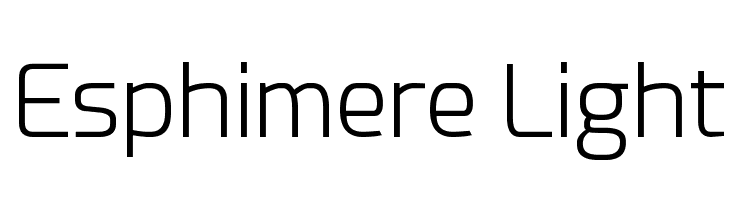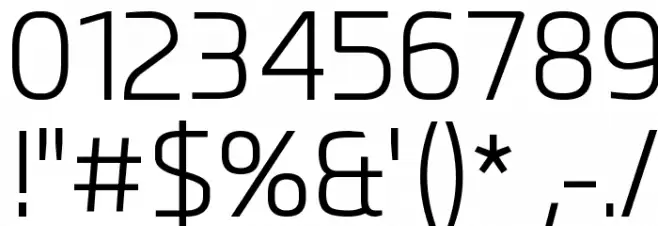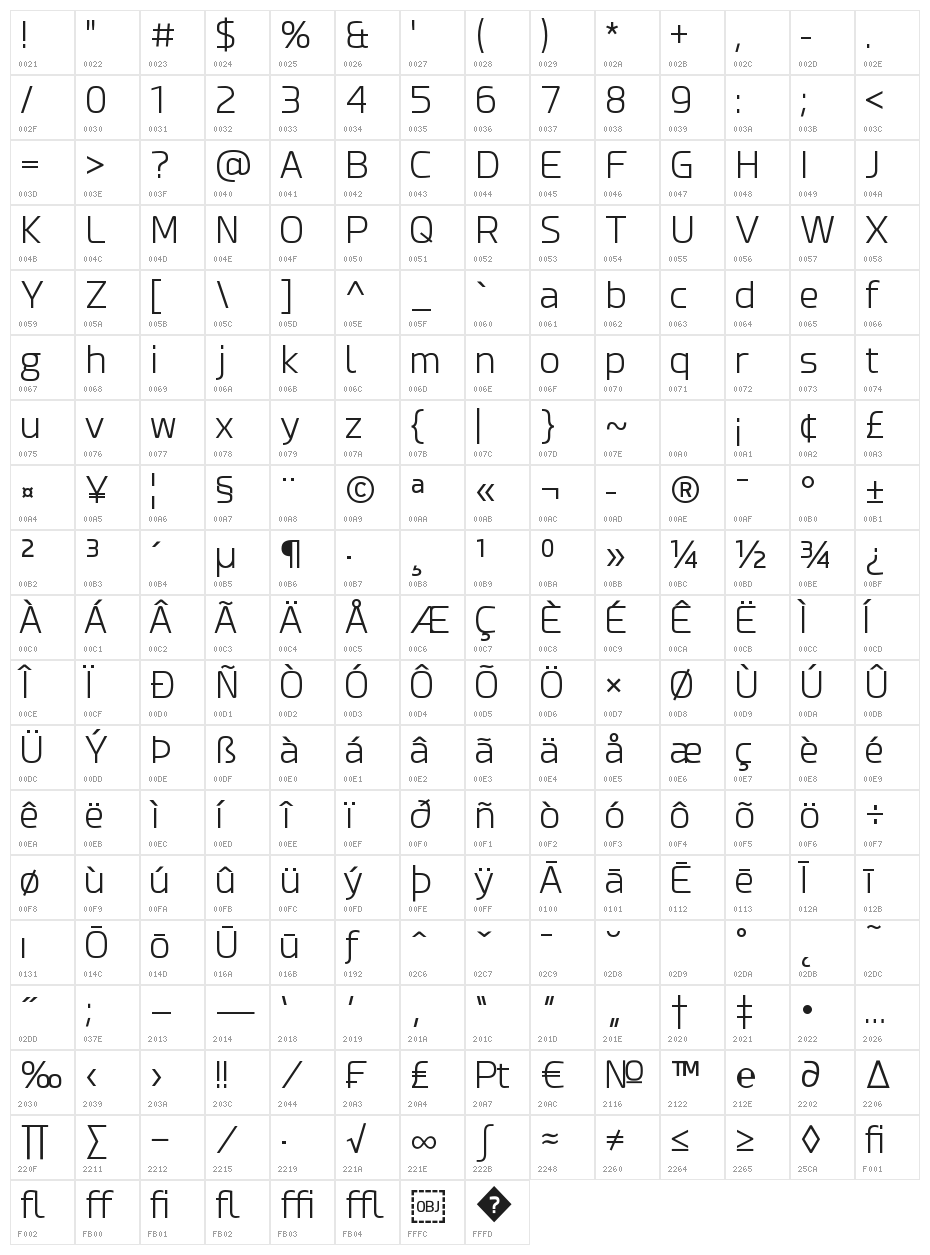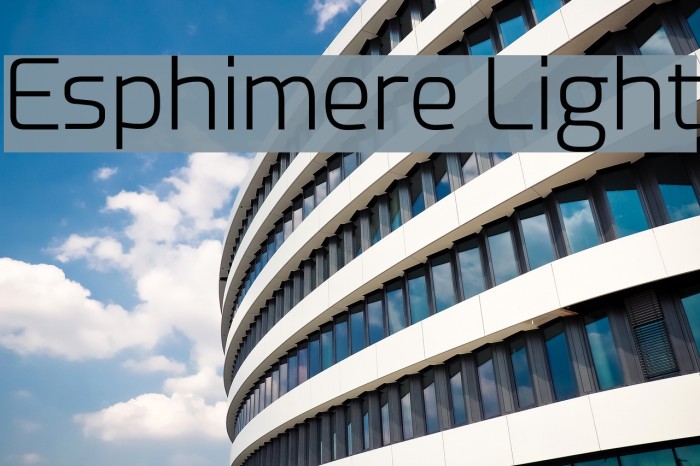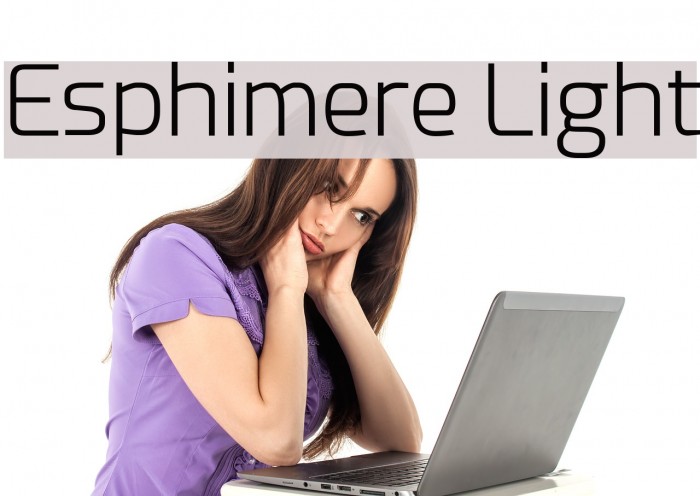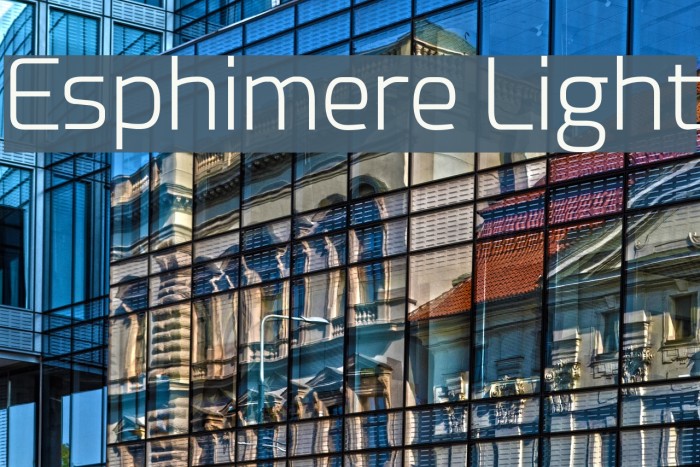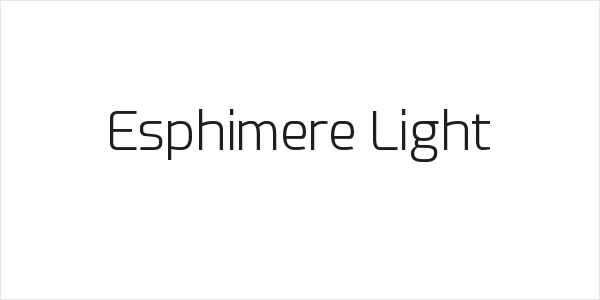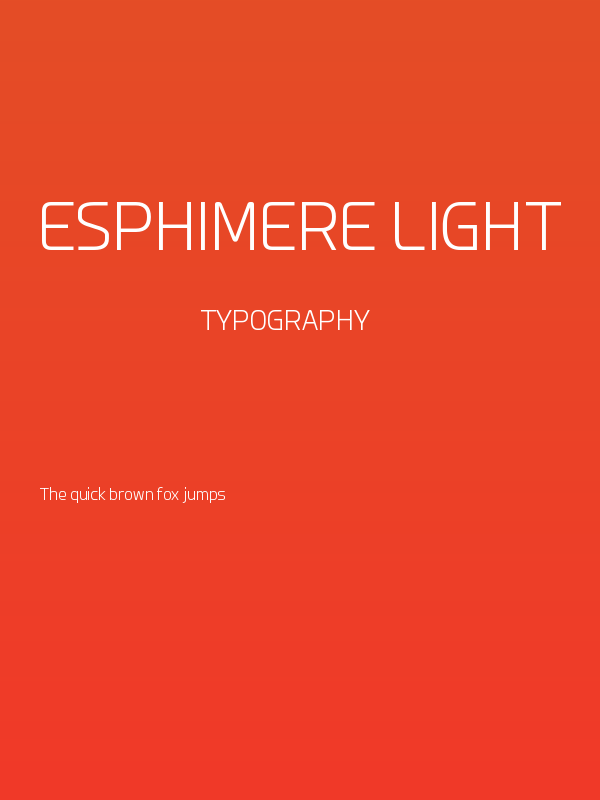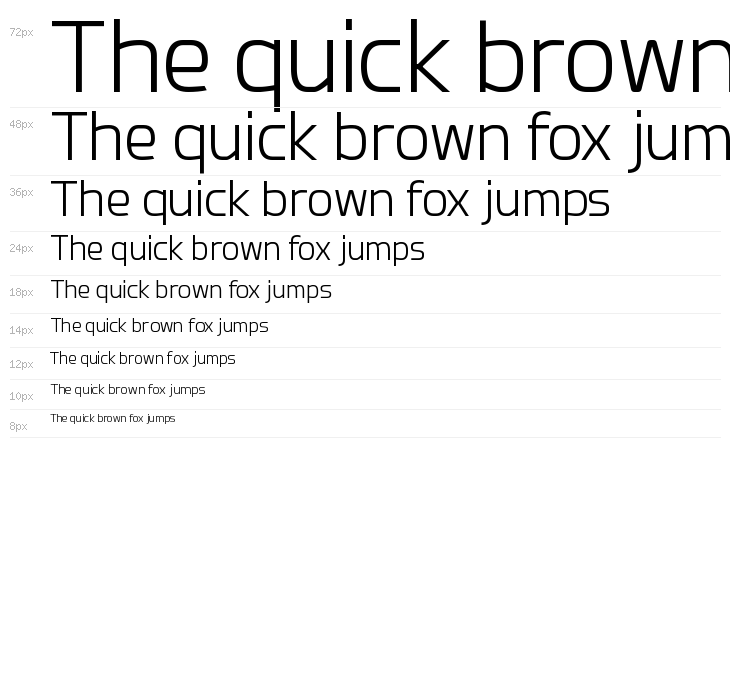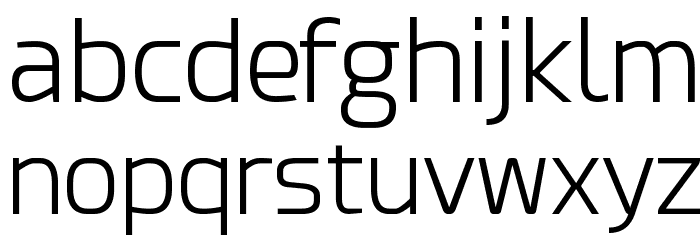
Esphimere Light Font
Esphimere Light Description
This font features a clean and modern sans-serif design with a light weight, making it ideal for minimalist and contemporary projects. The characters are well-proportioned with a slightly condensed width, providing a sleek and streamlined appearance. The uppercase and lowercase letters maintain a consistent style, with rounded edges that add a touch of softness to the overall look. The numerals and special characters are designed to complement the alphabet, ensuring readability and visual harmony. The font's simplicity and elegance make it versatile for various design applications.
Use CaseHeadlines, Body text, Logos
Proposed ProjectsIdeal for branding, web design, editorial layouts, and corporate materials.